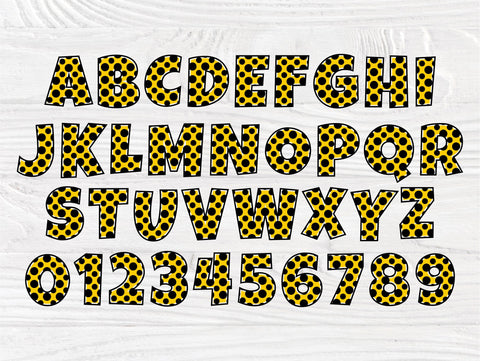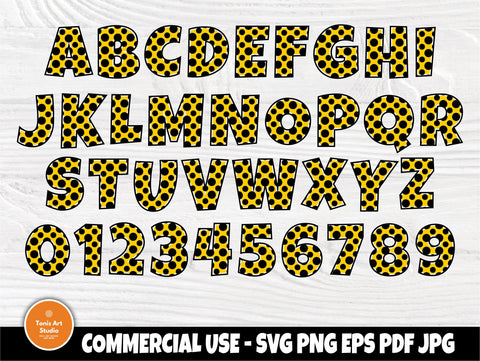
Polka Dot Alphabet SVG, Font Svg, Letters Cut File
* Beautiful Polka Dot Font, Digital Download in SVG, PNG, EPS, PDF, JPG format. Polka Dot Font SVG, Alphabet Clipart, Monogram Letters, Svg Cut Files, Svg Files for Cricut, Silhouette Cut Files.